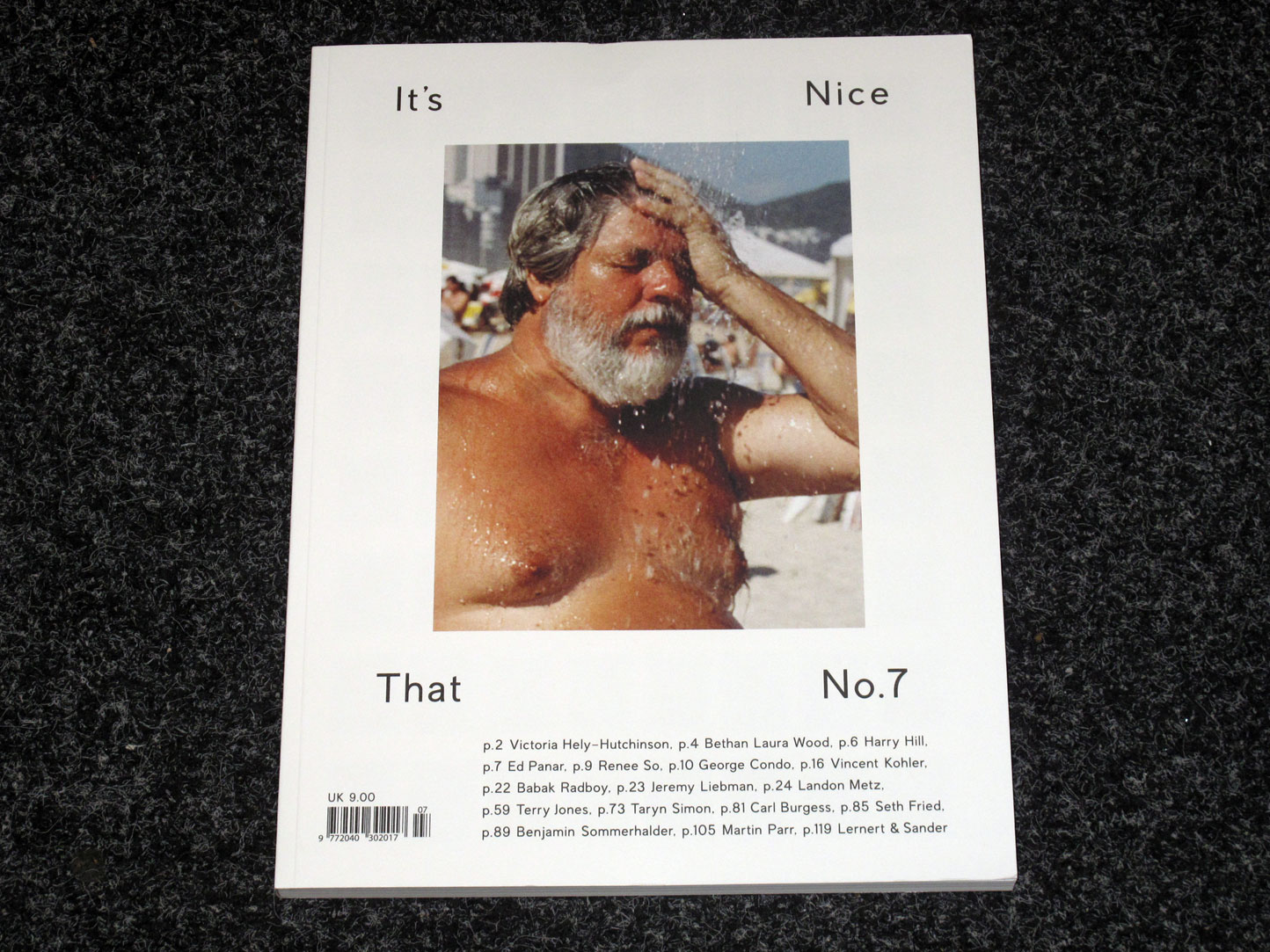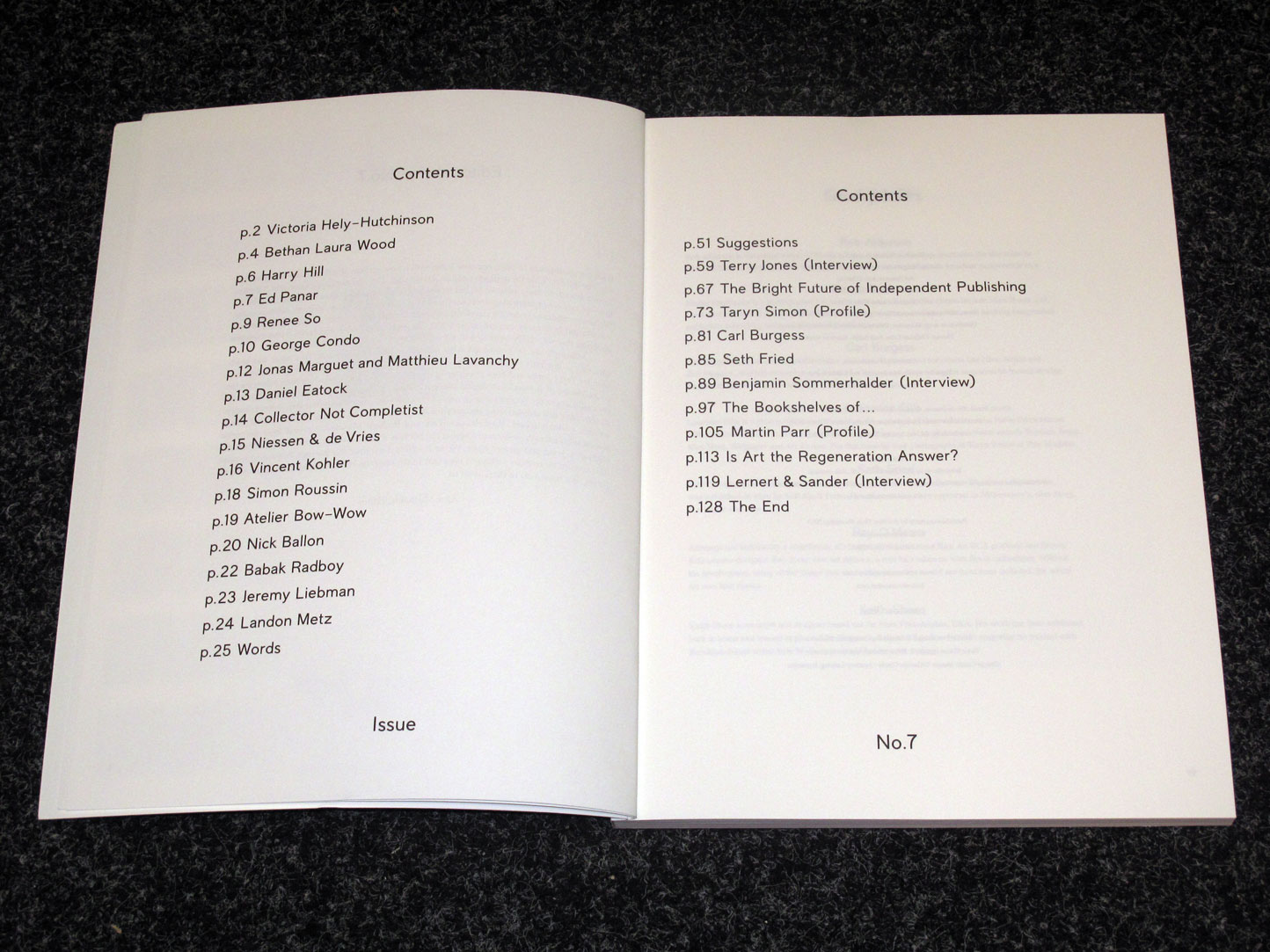
Looking for this sans that is somewhat similar to Post Grotesk but has a more laid back feel (source c. 2011)
Sans serif used in It's Nice That No.7 (c. 2011)